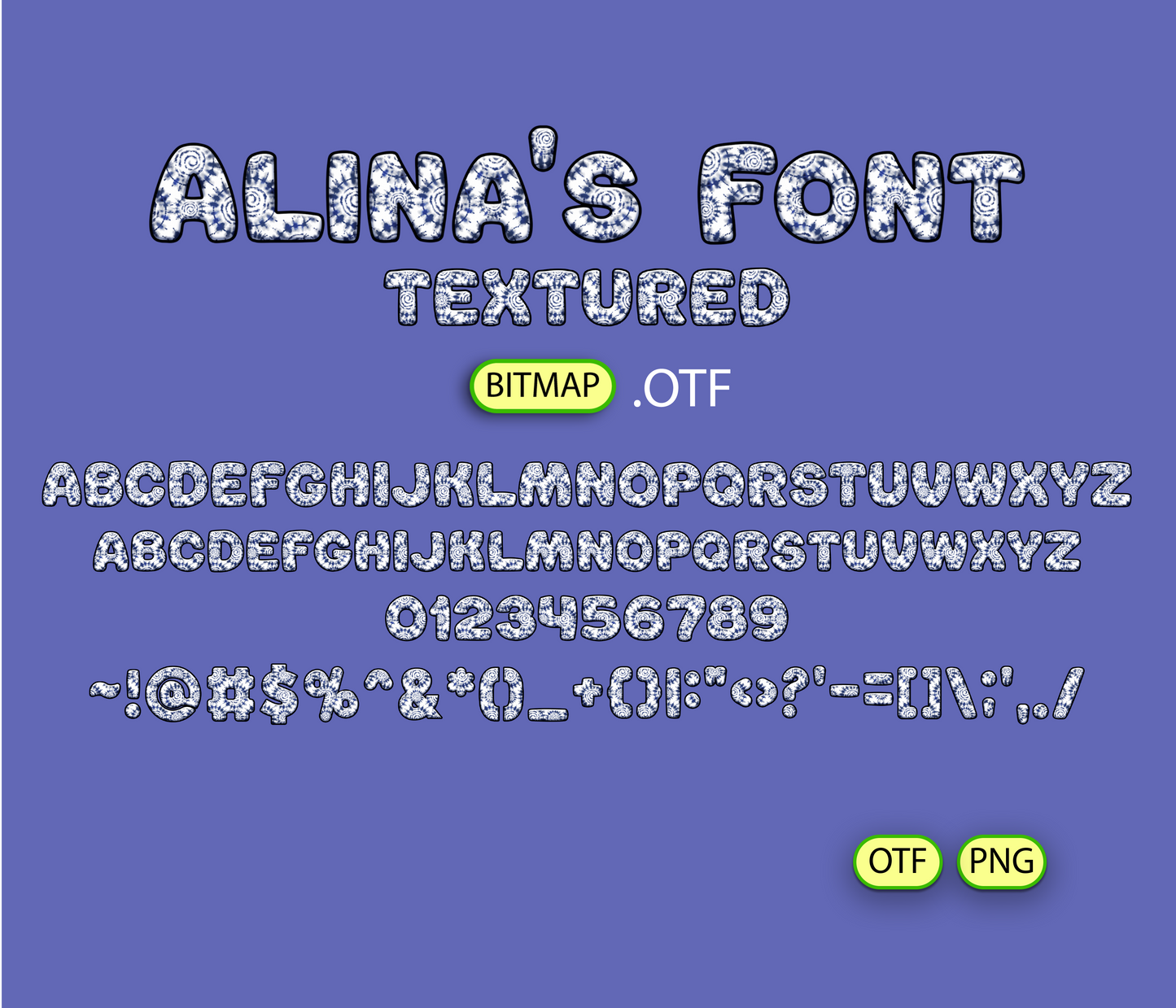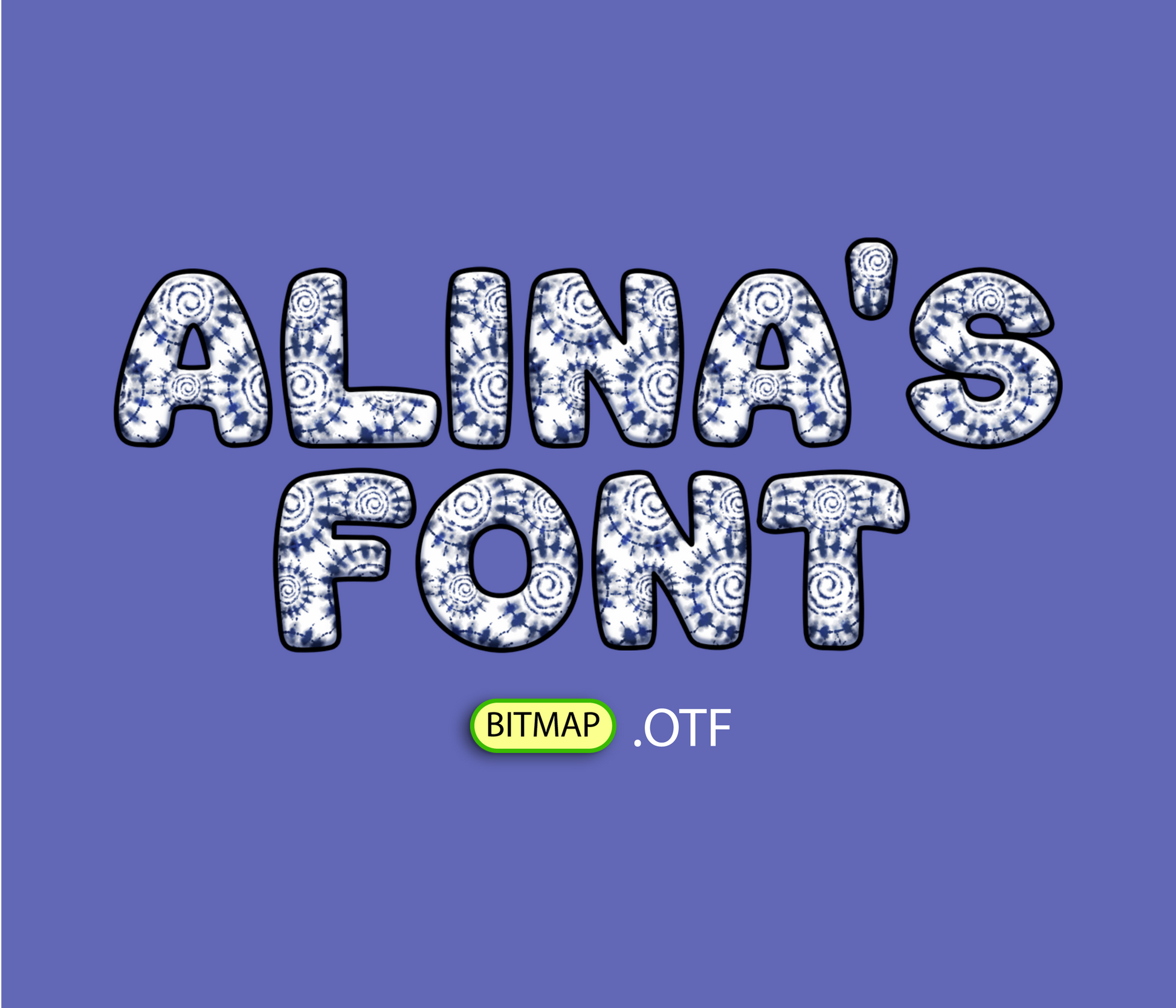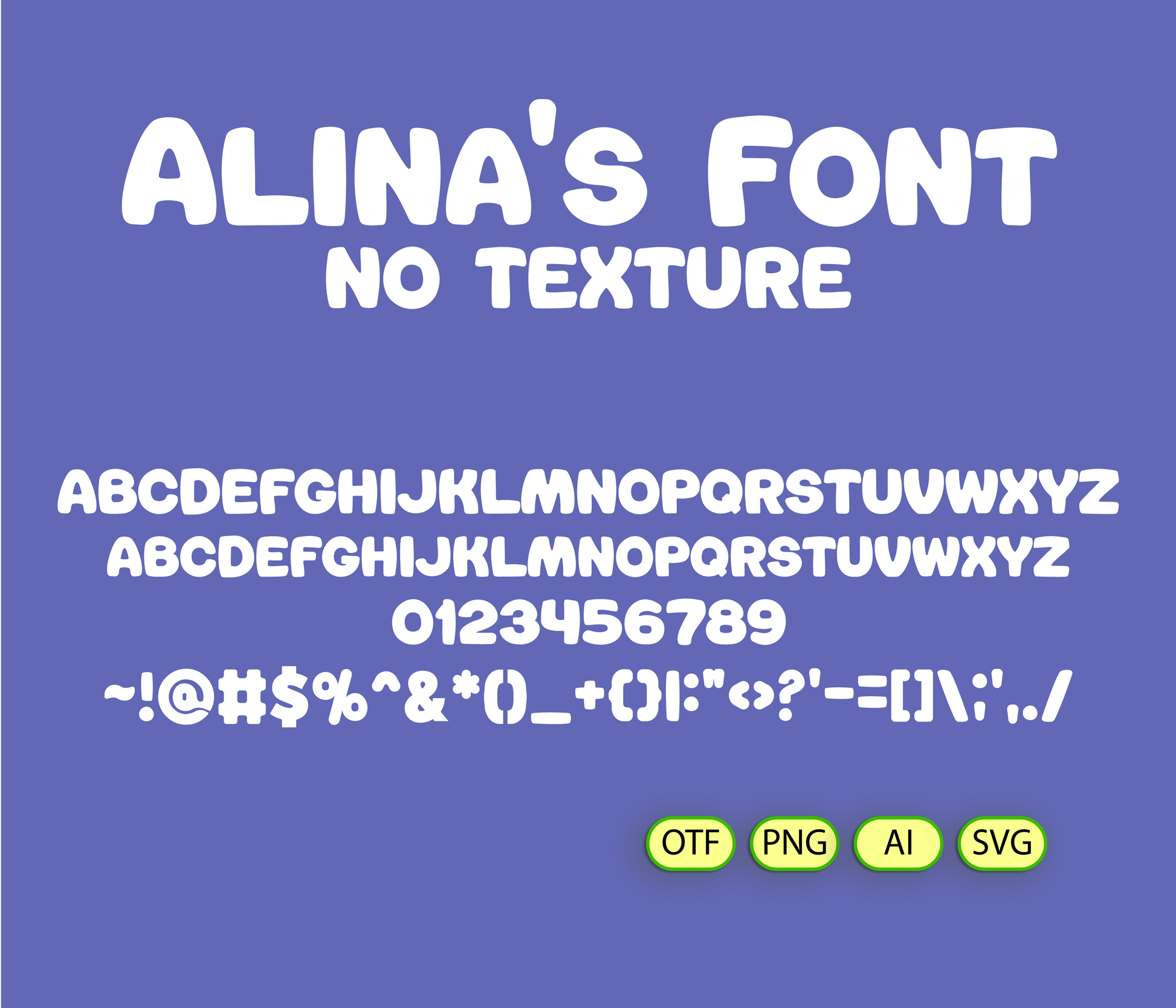
FREE Chromatic Swirl Pattern Font
Chromatic Swirl Font Family Groovy
Dive into the electrifying cosmos of acid-washed imagination with our Chromatic Swirl Font Family, reflecting the soul of artistic rebellion and spectrum-drenched creativity. Specially crafted for event coordinators, nostalgic brands, graphic innovators, and design enthusiasts, this typographic style infuses your work with the transcendent, boundary-breaking energy of sixties revival culture. Craft spellbinding layouts, alternative products, or online content with the liquid, iridescent appeal of dye-saturated fabrics and love generation symbolism.
Style Philosophy and Usage Range
Our Chromatic Swirl Font Family presents curvilinear, whirlpool-inspired contours and luminous character designs that capture the uninhibited yet harmonious spirit of peace movement typography.
Our Chromatic Swirl Font Family offers both morphed and standard variations, guaranteeing smooth performance across all design platforms, including Canva. This flexibility enables effortless integration for designers at every experience level.